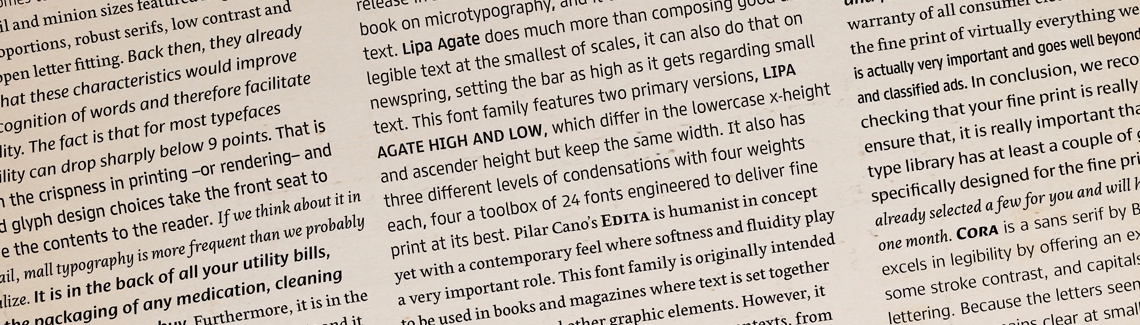
Typefaces for small text
Seasoned designers know that a typeface’s size plays a critical role in its ability to be read easily. The smaller text is, the more its characteristics must be emphasised for it to look the same as it does at normal reading sizes. It’s a good idea to have a few go-to faces for minuscule type, and we’ve got just the thing.
Great fonts for small sizes
Early punchcutters already knew most of the tricks 500 years ago: the human eye can always use a bit of help when it comes to very small text. That is why their agate, nonpareil, and minion sizes featured large x-heights, wide proportions, robust serifs, low contrast, and rather loose letter fitting. They understood these characteristics improved the recognition of words and therefore facilitated legibility.
The fact is that for most typefaces legibility can drop drastically when they are used smaller than 9 points. That is when the crispness in printing — or rendering — and good glyph design choices take the front seat to drive the content to the reader. Unless glyphs and their details are made more pronounced at these sizes, legibility is severely hampered.
If we think about it more closely, small typography is more frequent than we probably realise. It appears on the back of all your utility bills and on the packaging of any medication, cleaning, or food product we buy. Furthermore, it is on the warranty of all consumer electronic products and used for the fine print of virtually everything we sign. Small text is very important and its use goes well beyond phone directories and classified ads.
In conclusion, TypeTogether recommends double-checking that your fine print really is fine. Every designer’s type library should have at least a few good typefaces specifically designed for small print. We have selected three from our catalogue for this purpose: Cora, Lipa Agate, and Edita. Read on for a better understanding of how these type families make the fine print fine.
cora
Cora is a sans serif by Bart Blubaugh that excels in legibility by offering an extra-large x-height, some stroke contrast, and capitals inspired by classical lettering. Because the letters seem large and slightly wide, Cora remains clear at smaller point sizes, giving its voice a little more volume so those in the back of the room have no trouble hearing.
Engineered to perform well on screen without losing its attraction in print, the forthright nature of Cora’s shapes allows for condensation or expansion without becoming severely distorted. Yes, you read that correctly: you can mechanically compress this font. It was built for that! Cora was awarded the first prize for Latin text typeface in the 2008 Granshan Type Design Competition.
edita small
Pilar Cano’s Edita is humanist in concept but with a contemporary feel where softness and fluidity play a very important role. This family is originally intended to be used in books and magazines where text is set together with photographs and other graphic elements. However, it is versatile enough to be used in many other contexts, from novels to promotional material.
So why are we featuring it in this article? Because Edita includes two styles specially engineered for small sizes that defy the very physics of printing. With a taller x-height, heavier stems, reduced contrast, and carefully drawn inktraps, Edita Small guarantees legibility at sizes as small as five points. Edita was selected for the 2010 exhibition ‘Lletres de Barcelona’ and featured in Typography Served II. In 2011, it received a Typography Award by Communication Arts.
lipa agate
With its release in 2014, Ermin Međedović’s Lipa Agate rewrote the book on microtypography, and it did so by setting clear type at 4-point text. Lipa Agate does much more than composing good and legible text at the smallest of scales, it can do the same on newsprint, setting the bar as high as it gets regarding small text.
Lipa Agate features two primary versions, High and Low, which differ in the lowercase x-height and ascender height but keep the same width. It also has three different levels of condensations with four weights each, for a toolbox of 24 fonts engineered to deliver fine print at its best. Lipa Agate won Silver for Original Typeface in the 2014 European Design Awards and a Diploma in Rutenia 2014. It was also featured in three ‘Best of 2014’ lists.